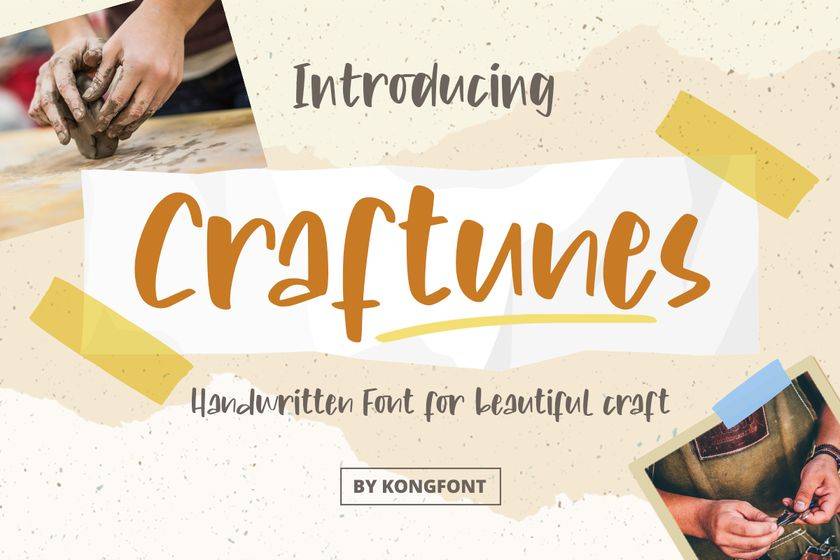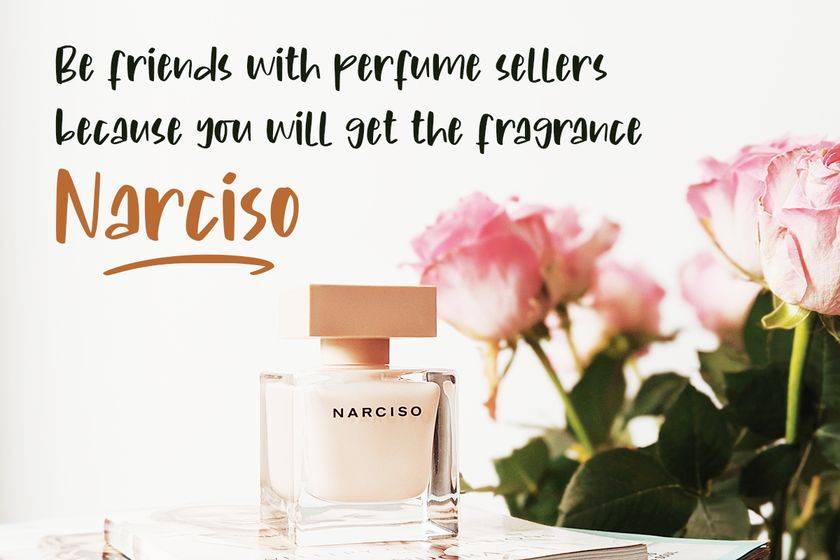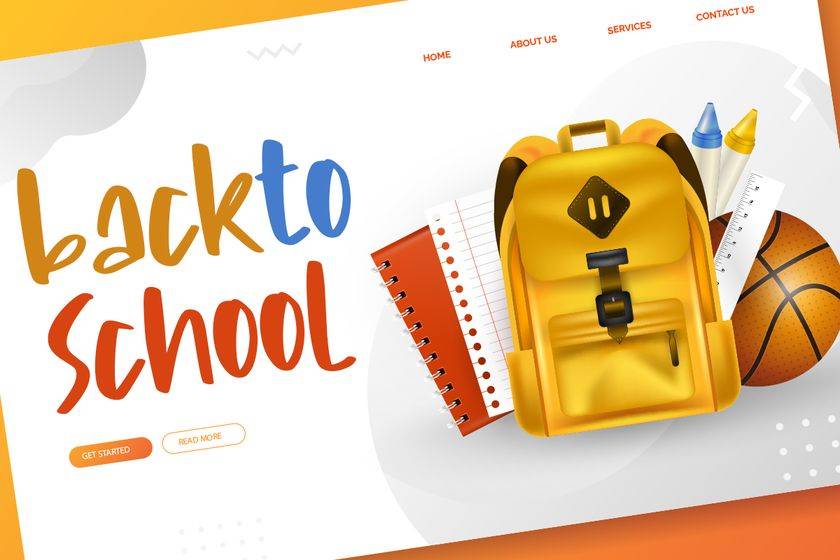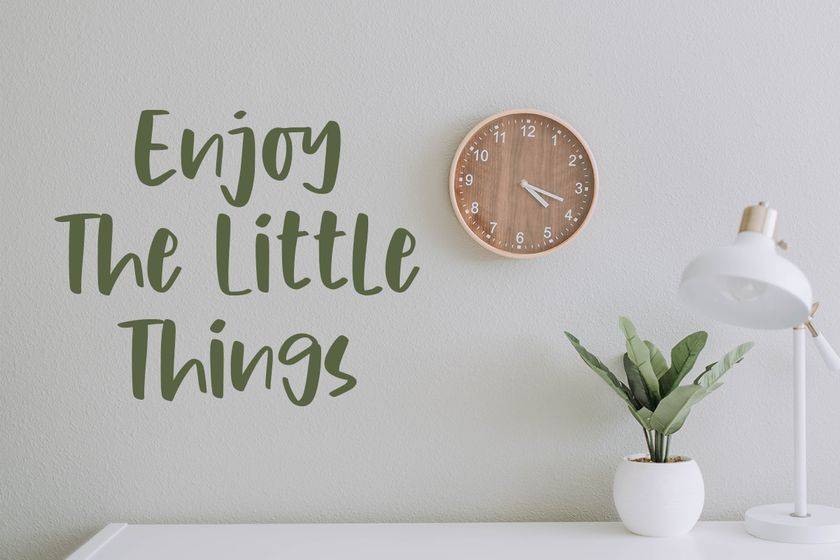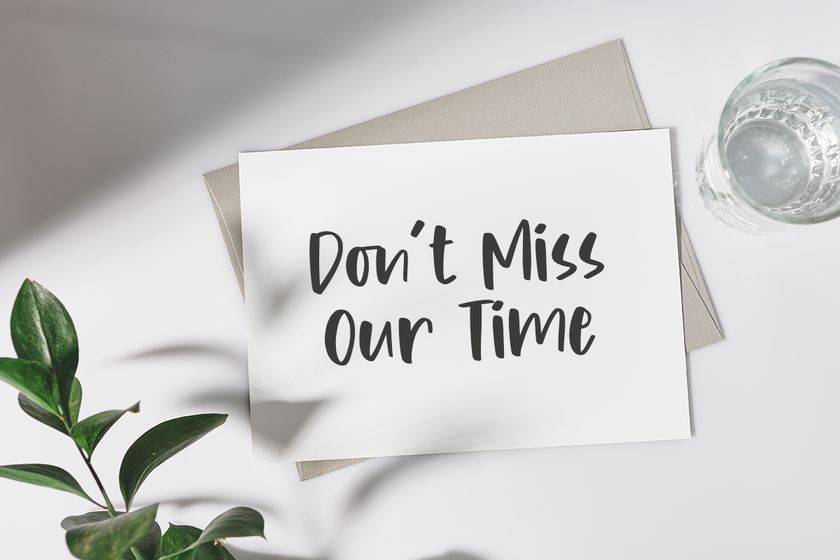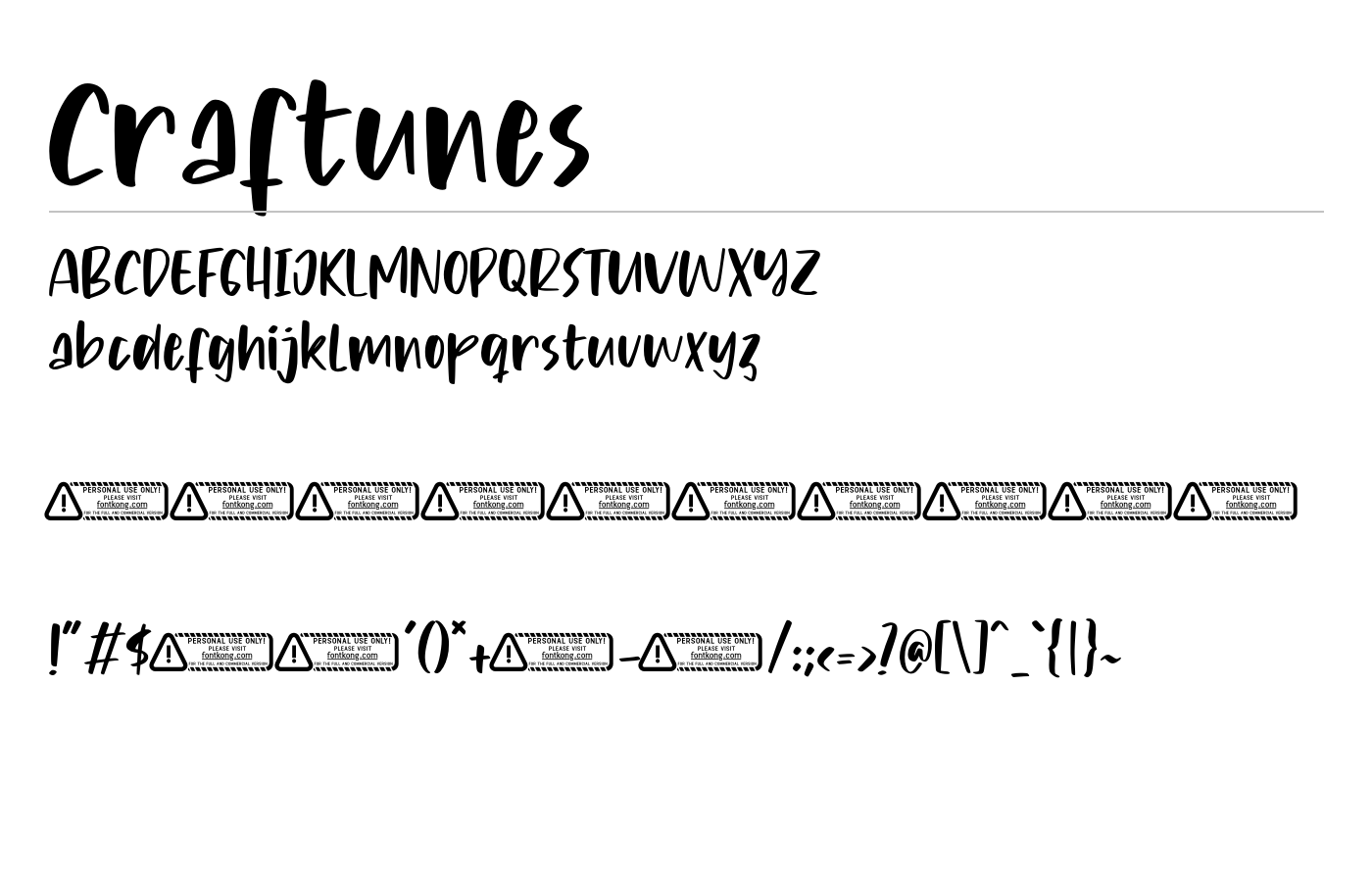
Craftunes is a casual, handwritten-style font with a playful and inviting personality. Its slightly irregular strokes and tall x-height give it a friendly, approachable feel, making it perfect for creative projects, informal branding, and lifestyle designs. This font works well for headlines, logos, and packaging where a personal, handcrafted touch is desired.
Craftunes Font
About Craftunes Font